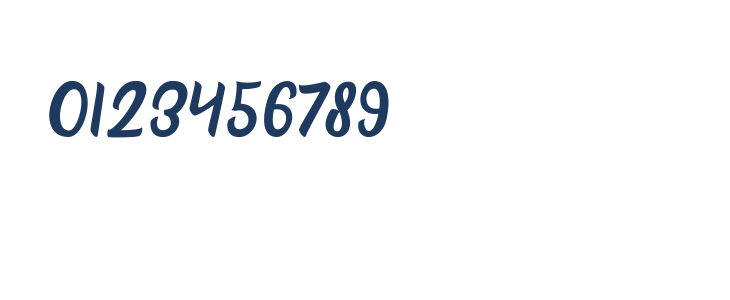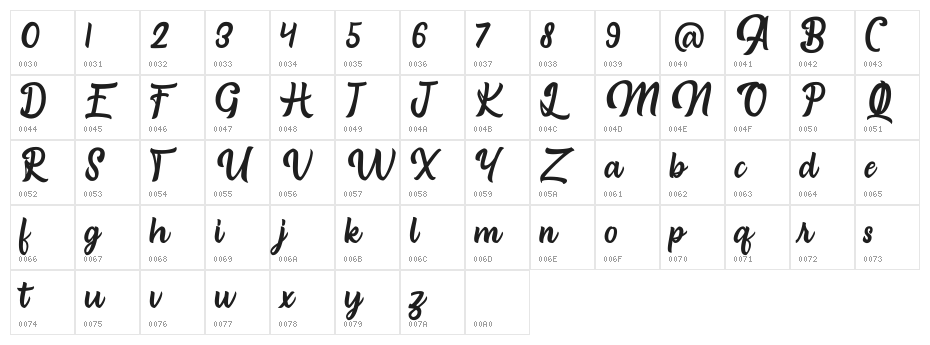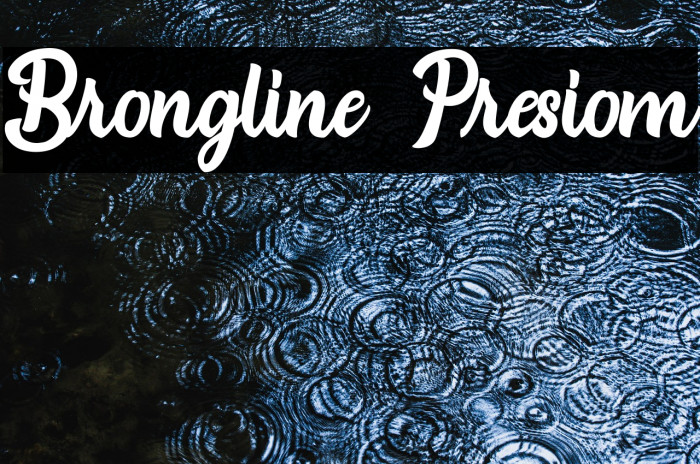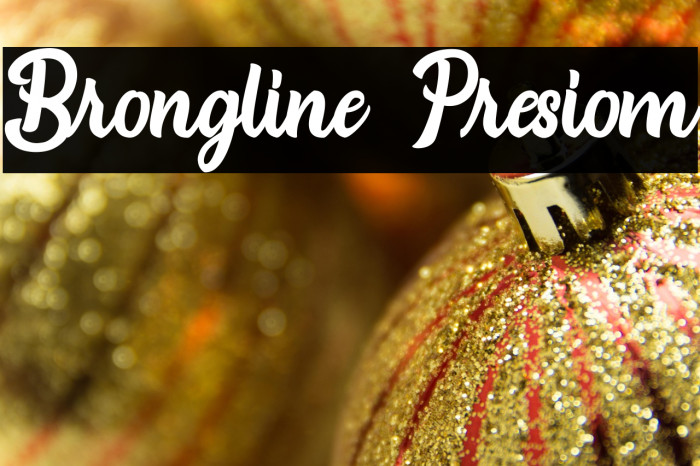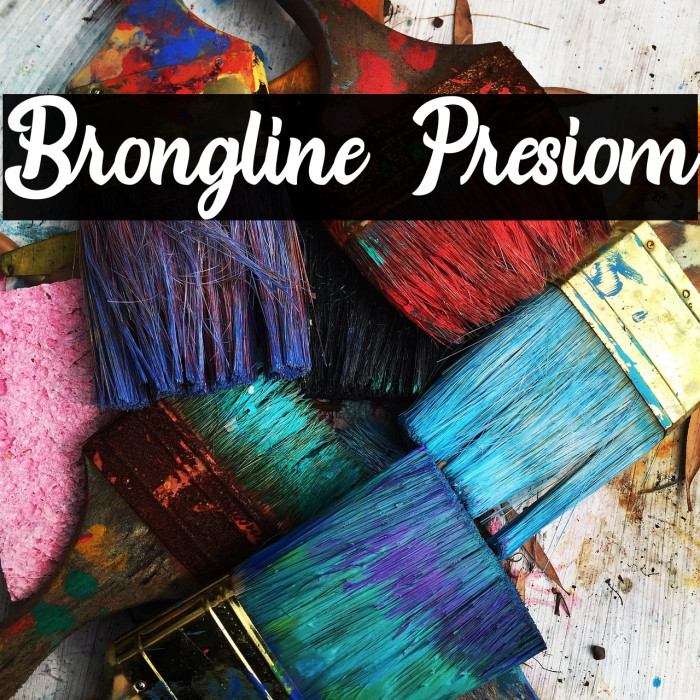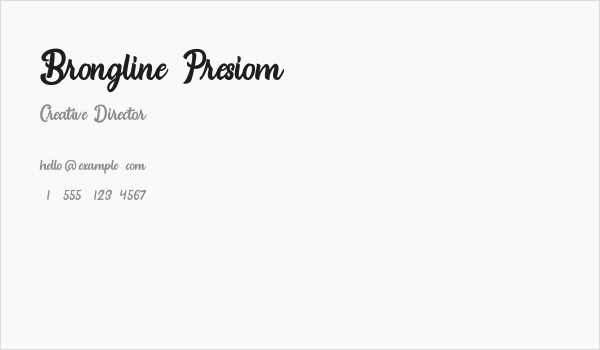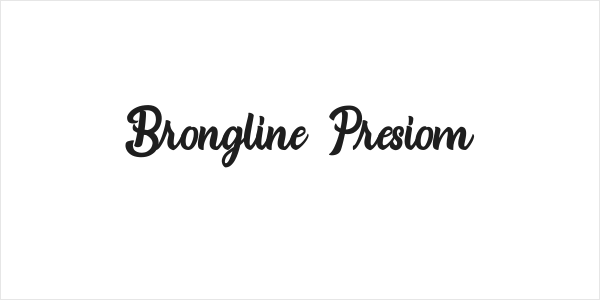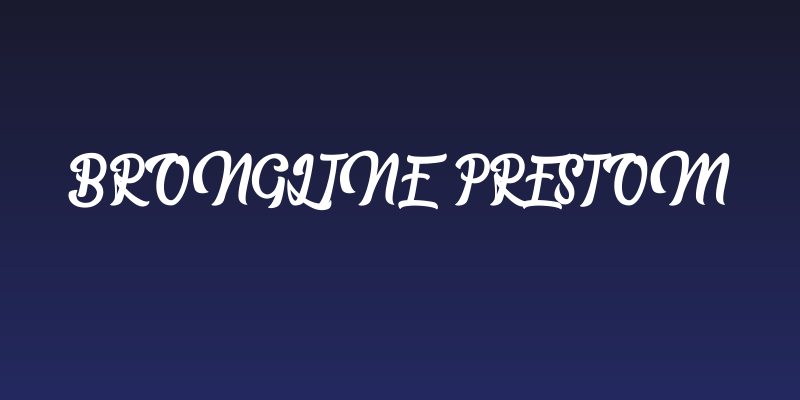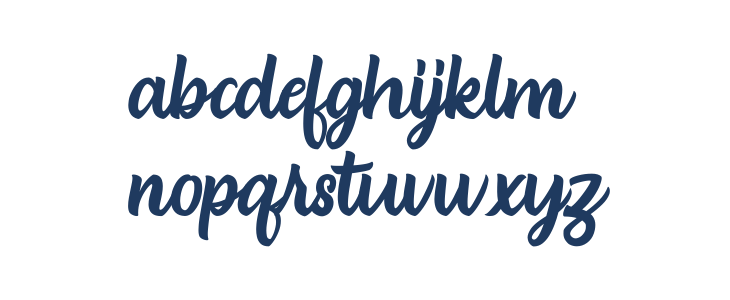
Brongline Presiom Font
Brongline Presiom Description
This font features a bold, flowing script style that exudes elegance and sophistication. The characters are interconnected with smooth, sweeping curves, giving it a dynamic and fluid appearance. The uppercase letters are slightly more ornate, with flourishes that add a touch of flair, while the lowercase letters maintain a consistent rhythm and balance. The numerals are designed to match the overall style, ensuring a cohesive look. This font is perfect for projects that require a personal, handwritten touch, such as invitations, greeting cards, or branding materials.
| Overall Style | Elegant, Decorative |
| Proposed Projects | Ideal for invitations, greeting cards, branding, and other projects requiring a personal touch. |